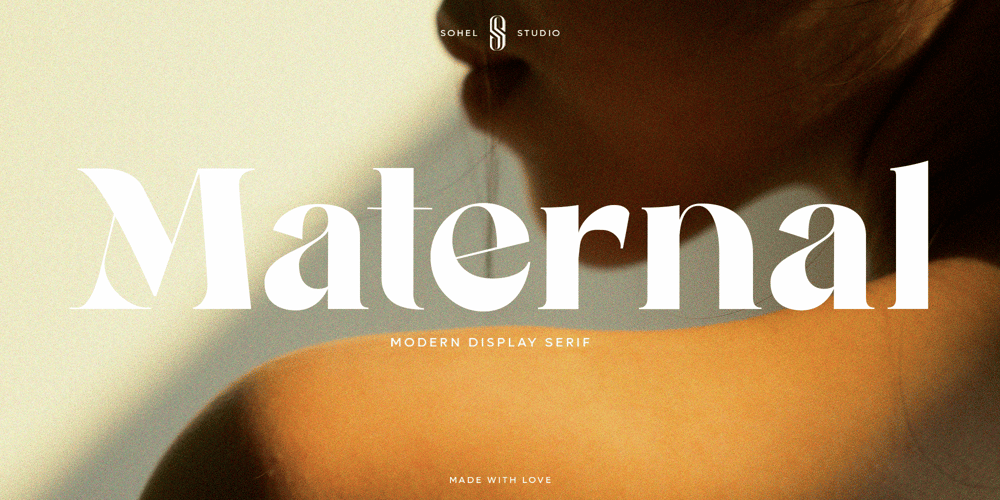
Maternal Font Family was designed by Akhmad Husain Rifa’i and published by Sohel Studio. Maternal contains 2 styles and family package options. Maternal is Modern Display Font. This typeface is perfect for an headlines, classy editorial design, magazine, fashion brand , cosmetic brand, fashion promotion , modern advertising design, invitation card, art quote, home decoration , book/cover titles, special events, and much more.Maternal Features: · Uppercase & Lowercase · Alternates & Ligatures · Numerals & Punctuation · Accented characters · Multilingual Support · Unicode PUA EncodedIf you want the SVG version please contact me.While using this product, if you encounter any problem or spot something we may have missed, please don’t hesitate to drop us a message. We’d love to hear your feedbacks in order to further fine-tune our products. Thanks and have a wonderful day .